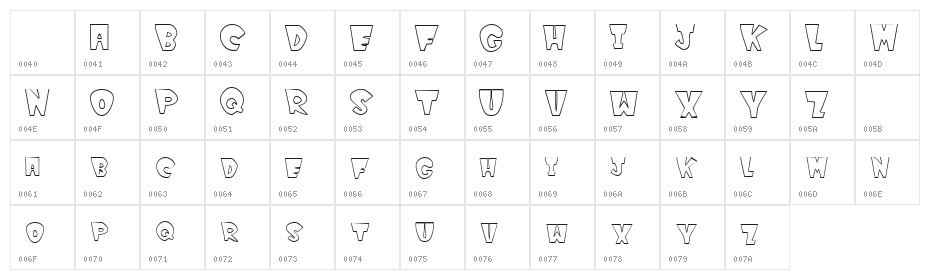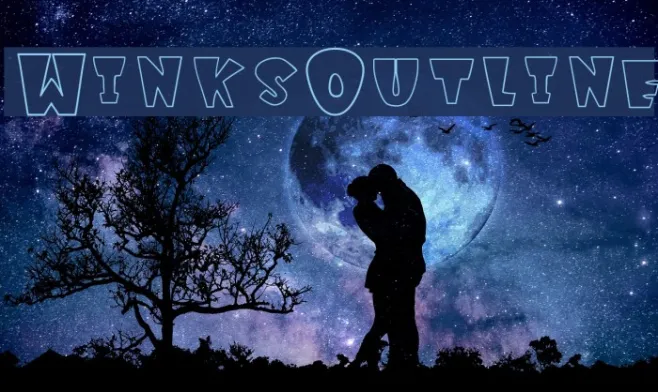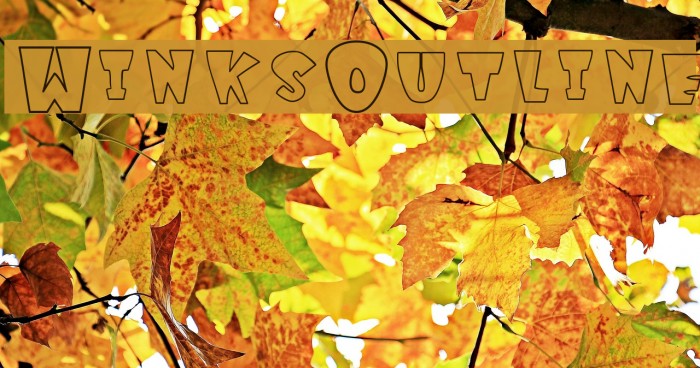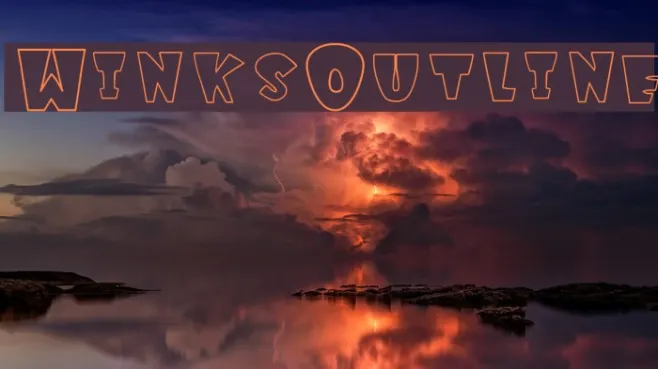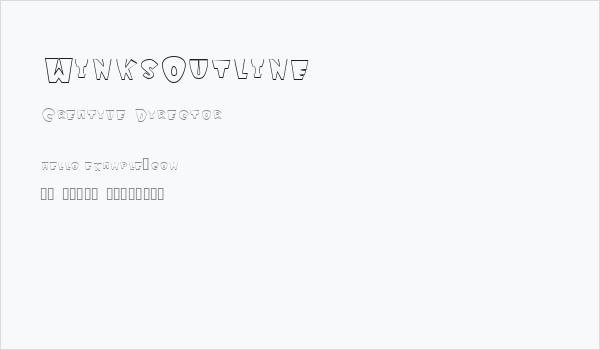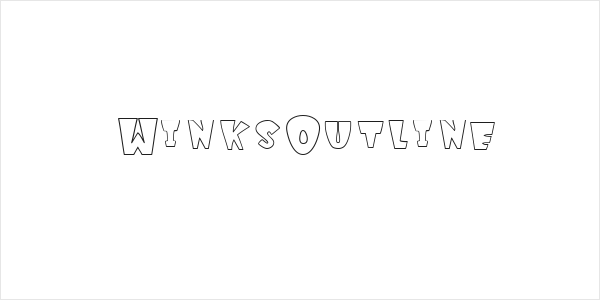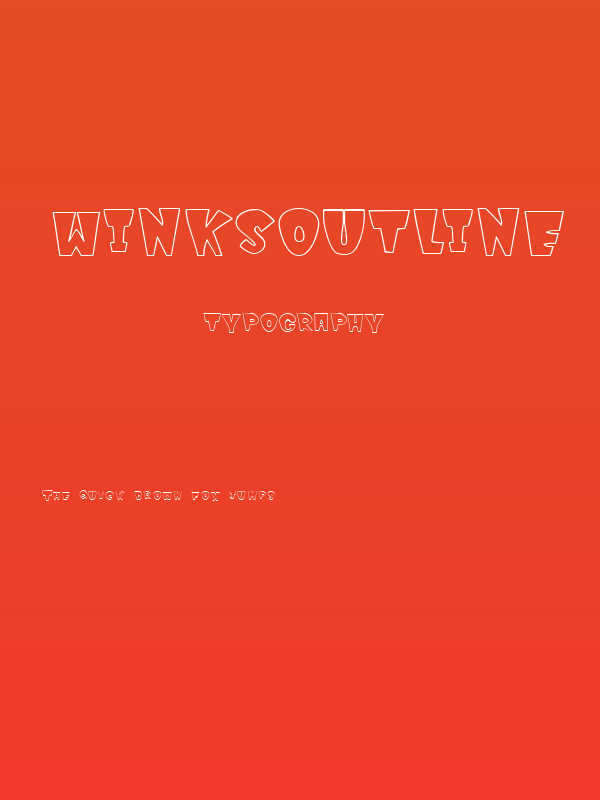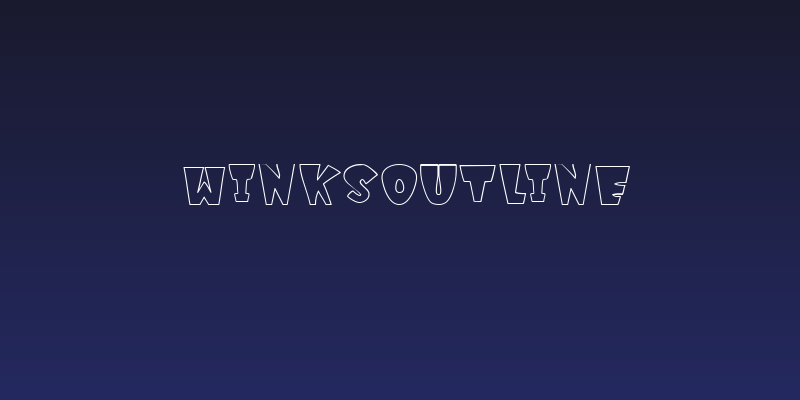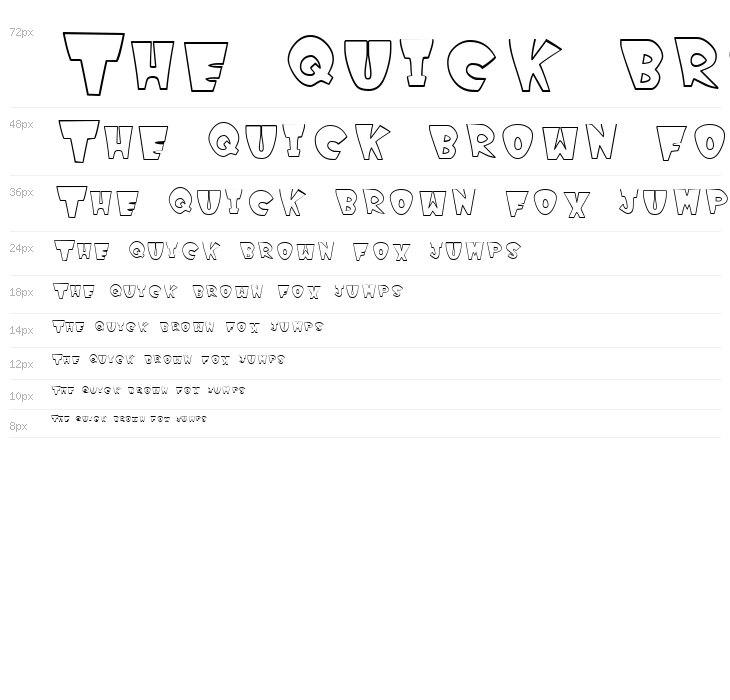
WinksOutline Font
WinksOutline Description
This font features a playful and bold outline style, characterized by thick, uniform strokes that create a hollow appearance. The letters are uppercase and exhibit a geometric, block-like structure with rounded edges, giving them a friendly and approachable look. The consistent thickness of the lines ensures readability, while the outline design adds a unique and creative flair. This font is ideal for designs that require a fun and engaging aesthetic, making it suitable for children's projects, playful branding, or eye-catching headlines.
| Proposed Projects | Ideal for children's books, playful branding, posters, and eye-catching headlines. |